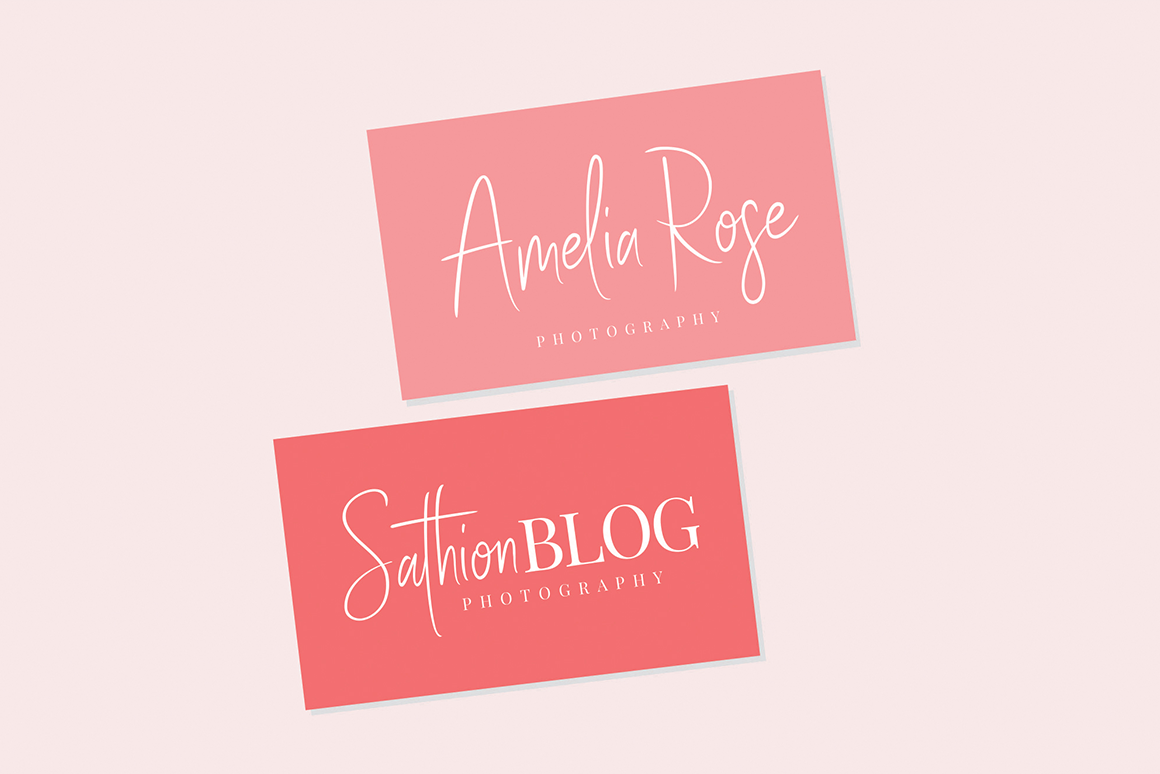
Free Stay Classy Font
Take a look at this beautiful free stay classy font. This typeface file was found from the amazing source called Pixelify. You can create a professional designs with this fancy font.